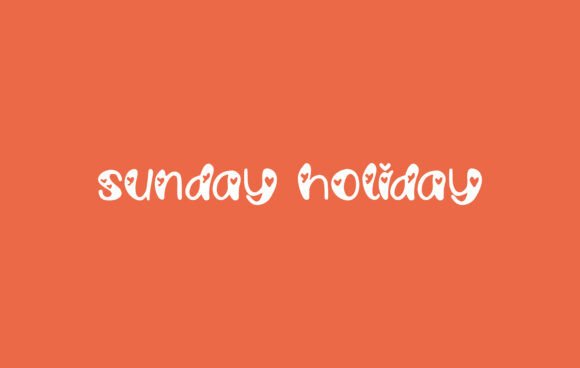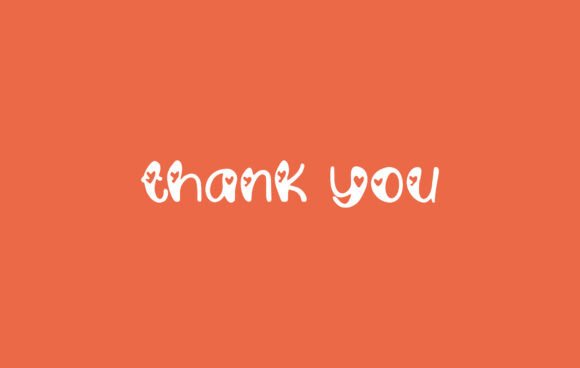
Introduction to Lark Font
Have you ever been working on a creative project, pouring your heart and soul into every detail, only to find the perfect font that brings everything together? For designers, this moment is pure magic. It’s the difference between a good design and a great one. And that’s exactly what the Lark Font can do for you. With its authentic handwritten style and romantic touch, this font has the power to elevate your designs and leave a lasting impression.
Whether you’re working on a magazine headline, social media post, or wedding invitation, the Lark Font is a versatile and high-quality design resource that’s sure to impress. Its legibility makes it perfect for both title and body text, and its transparent background allows for seamless integration into any design. The best part? You can download it for free, making it an invaluable addition to your design arsenal.
Key Features of Lark Font
- High-quality design resource ideal for creative projects, offering a wide range of styles and formats.
- Transparent background, providing maximum flexibility for designers working on various backgrounds and compositions.
- Available in multiple sizes, including small caps, uppercase, and lowercase, to cater to different design requirements.
- Resolution: 300 DPI, ensuring crisp and clear text rendering in print and digital applications.
- Unique characteristics include elegant lines, subtle curves, and a clean aesthetic, making it perfect for modern design projects.
Honest Review: Lark Font
Lark Font is a beautiful, elegant font that I’ve had the pleasure of working with on a recent creative project. The high quality of this font is evident in its refined lines and intricate details, making it perfect for designing professional-looking materials.
- ✨ The transparent background allows for easy overlay and manipulation of text
- ✨ The font is highly versatile and suitable for a wide range of design applications
- ⚠️ The font may not be as effective for designing bold, attention-grabbing headlines
Overall, I’m very impressed with Lark Font and would highly recommend it as a valuable design resource. Its high quality and versatility make it a great addition to any designer’s toolkit.
Tips for Getting the Most Out of Lark Font
When using Lark Font, consider the following tips: use a transparent background to make the font stand out, experiment with different font sizes and styles to add visual interest, and use the font in combination with other design elements to create a cohesive look.
Lark Font is a versatile design resource that can be used in a variety of creative projects, including logos, branding materials, and marketing materials. Its high-quality design and transparent background make it an ideal choice for designers and non-designers alike.
Is Lark Font suitable for use with transparent backgrounds?
Yes, Lark Font is designed to be highly versatile and can be used with transparent backgrounds. The font’s high-quality design ensures that it will display well even when used on a transparent or semi-transparent background, making it a great choice for designers who need a font that can adapt to different design scenarios.